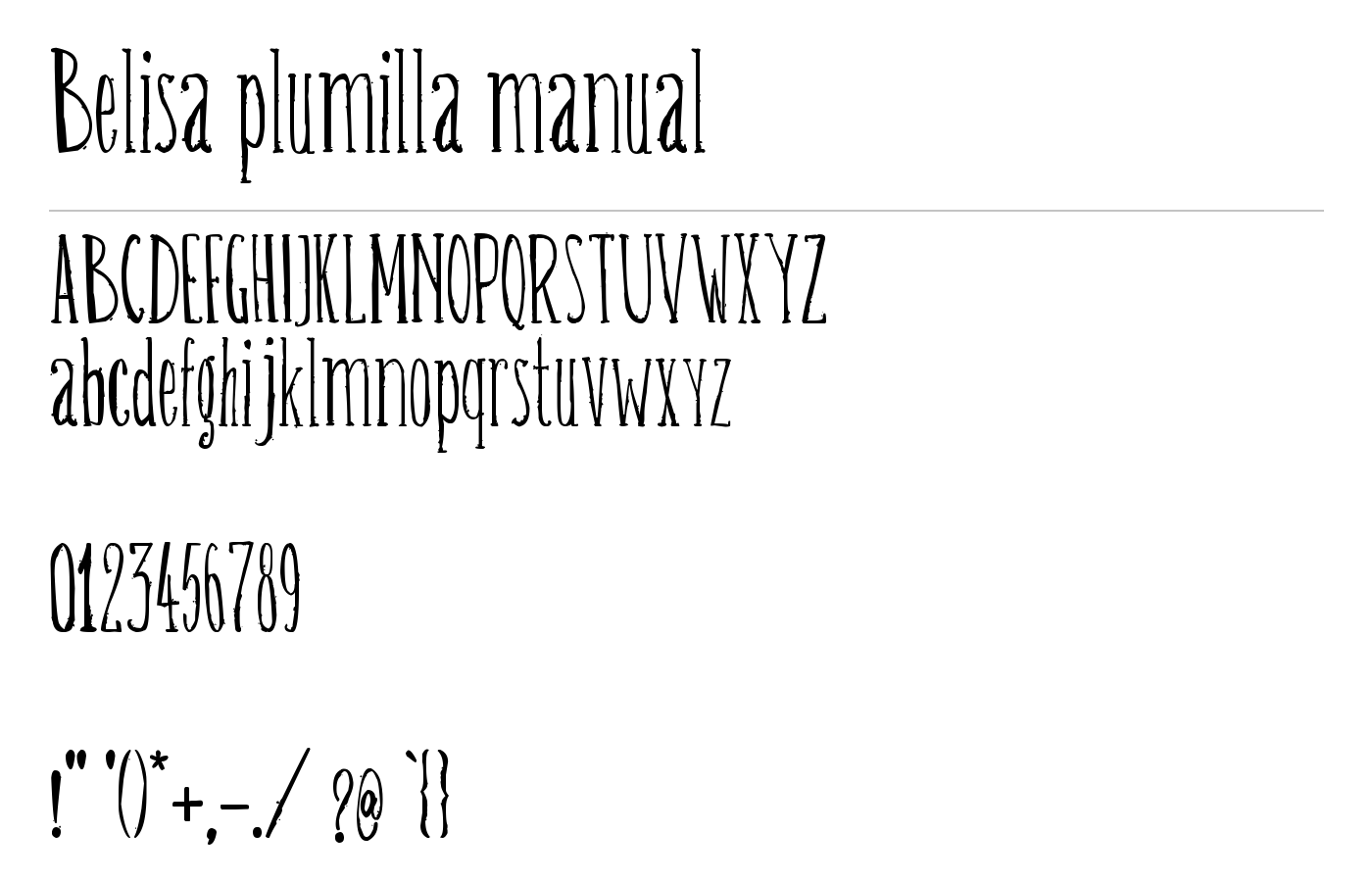
Belisa plumilla manual is a narrow, hand-drawn serif font with a tall, slender appearance and subtle stroke contrast, giving it a distinctive, slightly vintage yet quirky charm. Its delicate serifs and uneven lines create a handcrafted feel, making it ideal for creative, artistic projects or unique headlines where personality and a whimsical touch are desired. This font works well in editorial designs, posters, and branding that seeks an individual and slightly playful character.
Belisa plumilla manual Font
About Belisa plumilla manual Font